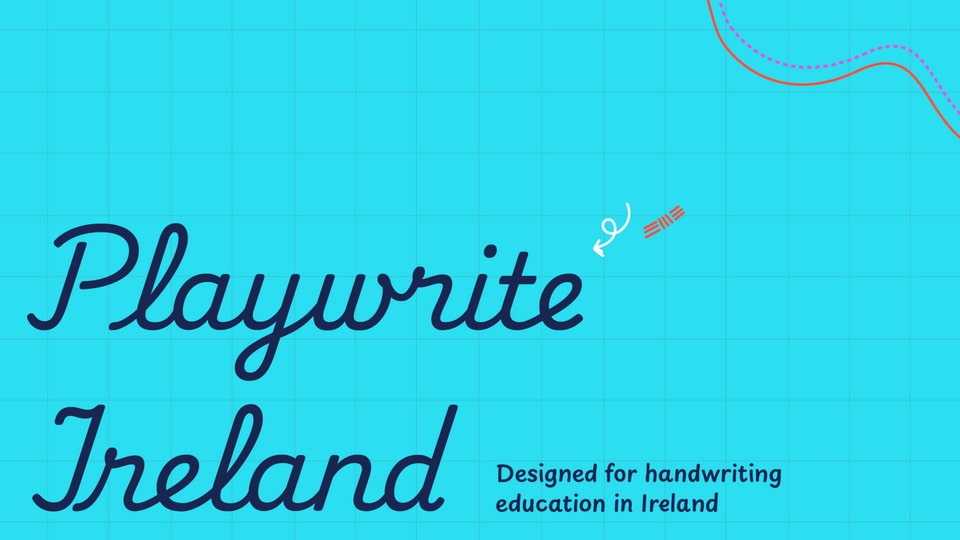
Download Playwrite font, a typeface that allows the creation of primary school cursive fonts. This model showcases a sloped, continuous cursive style where uppercase letters connect to the following letter whenever possible.